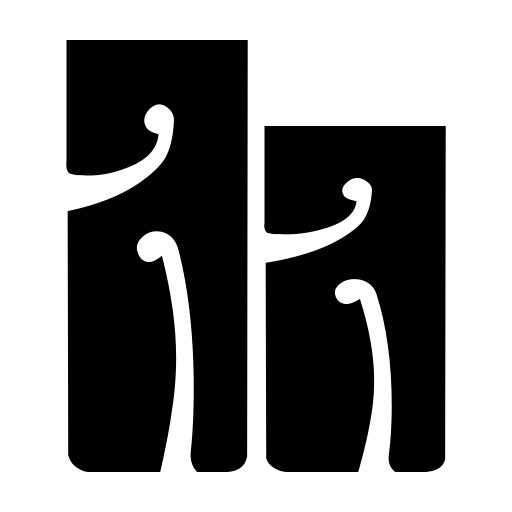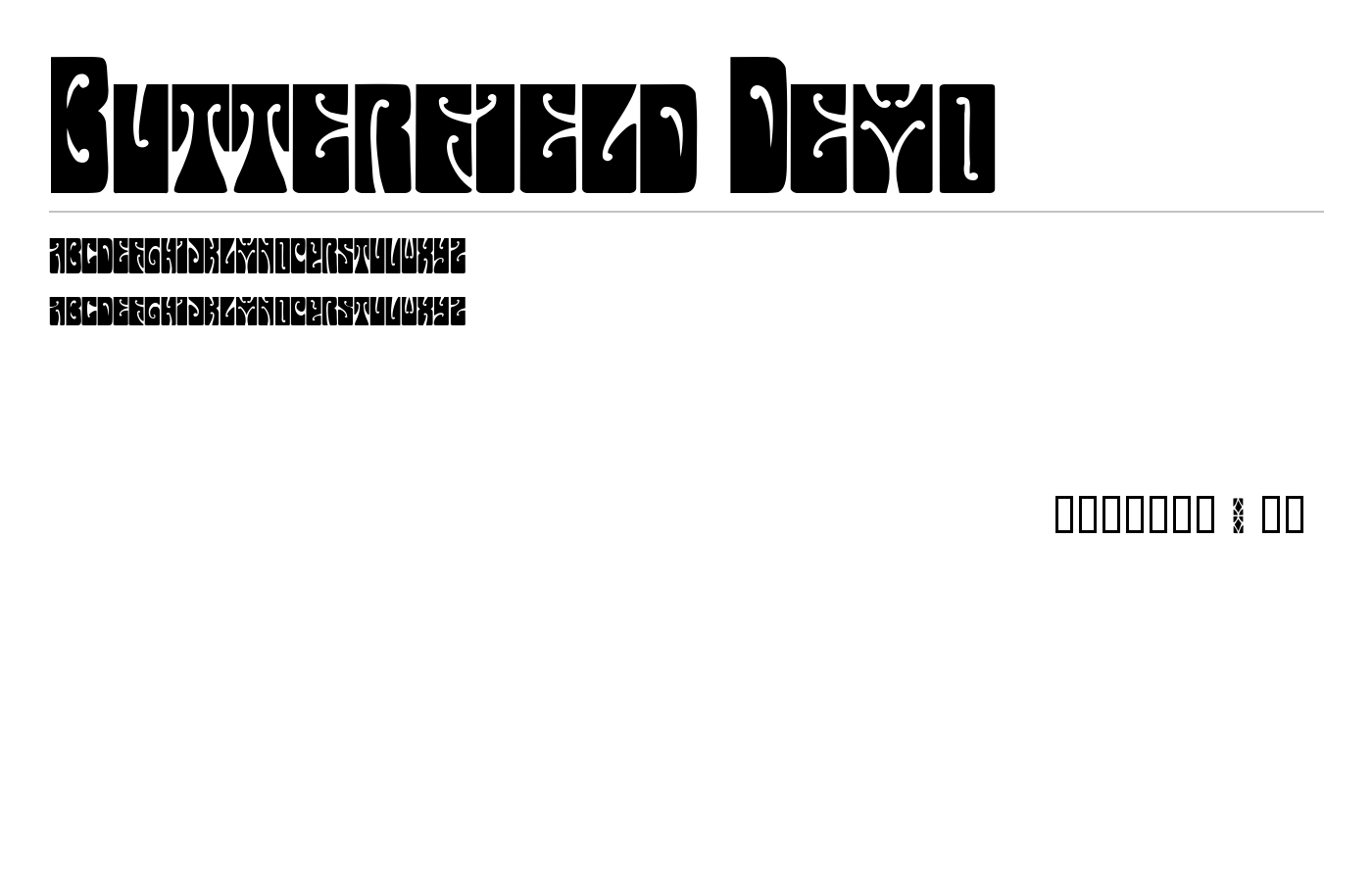
Butterfield Demo is a bold, condensed display font with a highly decorative and artistic style that blends strong geometric shapes with intricate organic cutouts. Its unique, blocky letterforms create a striking visual impact, making it ideal for creative headlines, logos, and posters where bold expression and individuality are key. This font works best in artistic or alternative branding contexts where eye-catching and unconventional typography is desired.
Butterfield Demo Font